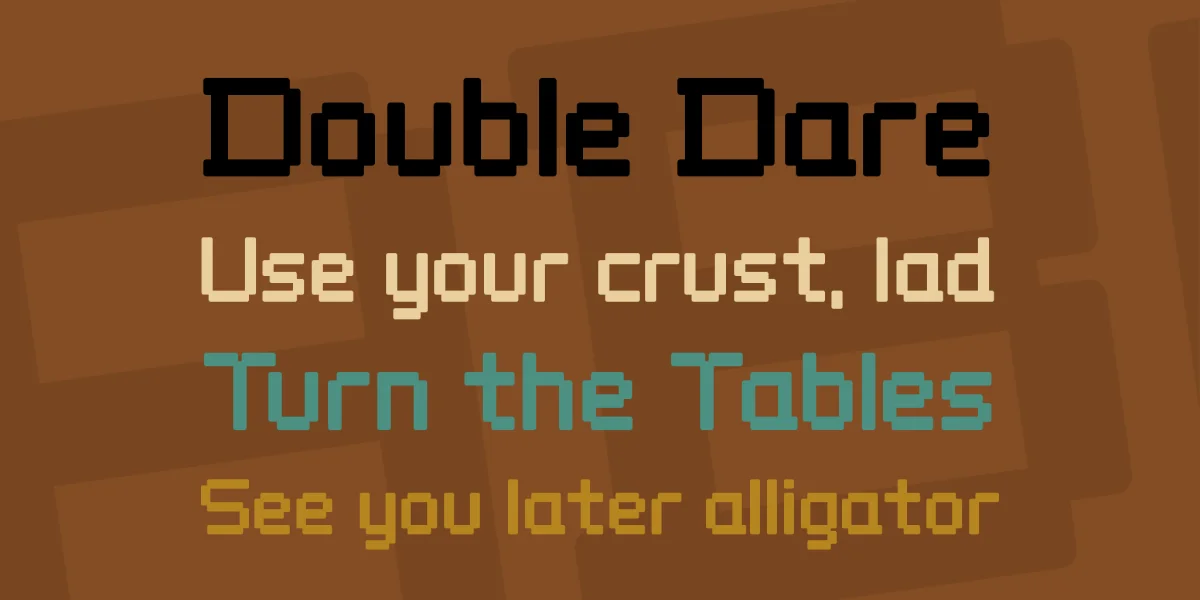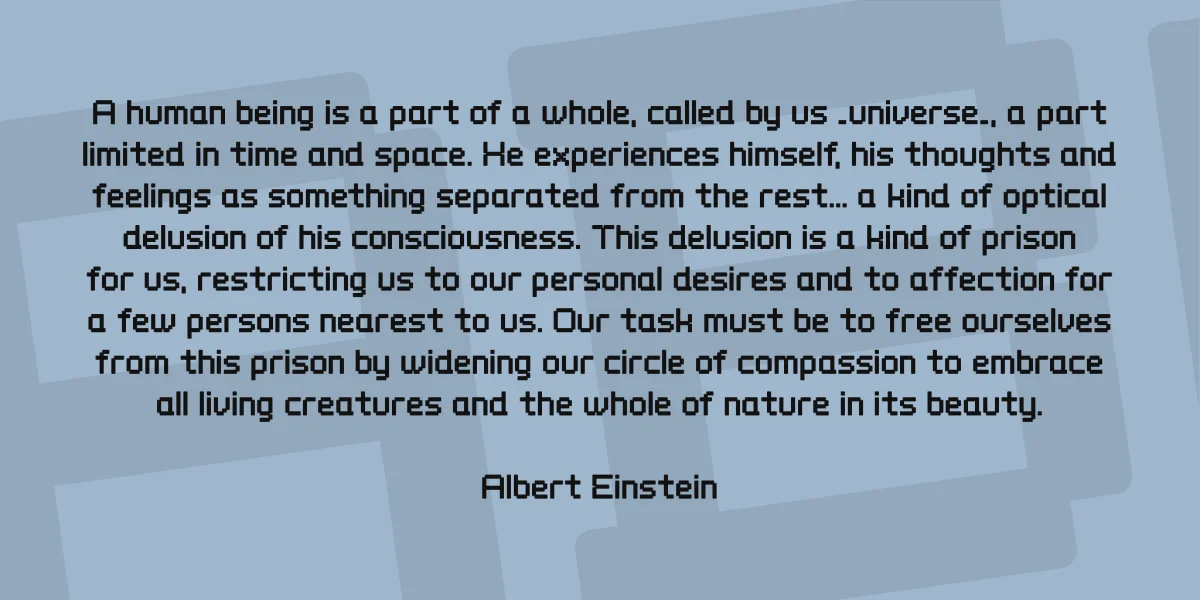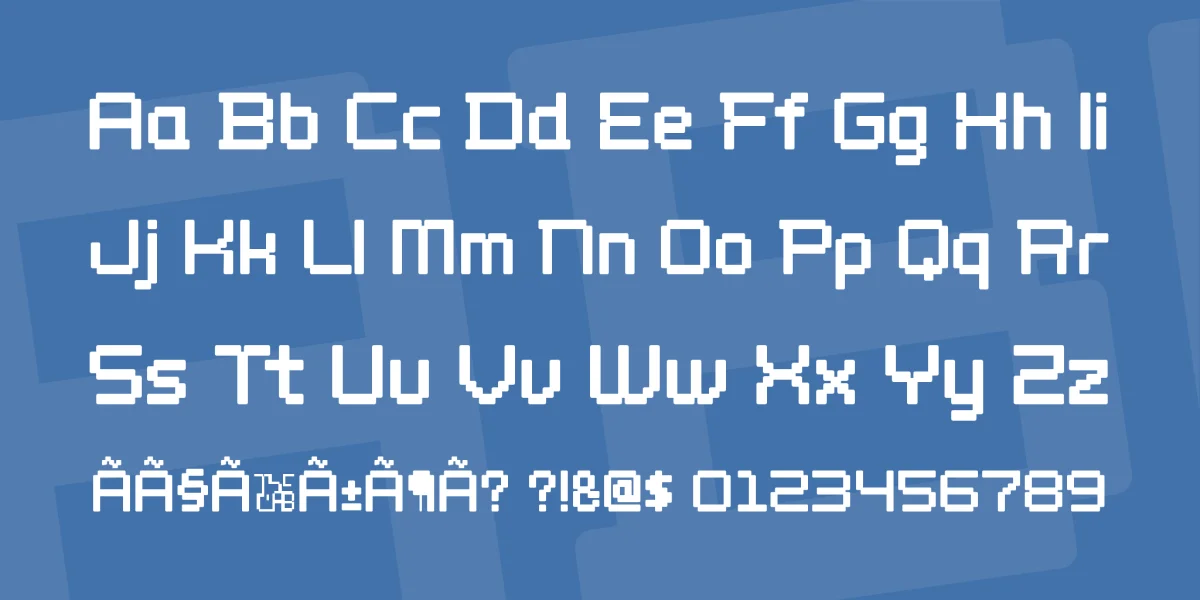
The first few letters of Welbutrin didn't look anything like they do now. It originally started as an experiment with bitmaps, where Karen turned a 12 point bitmap version of Helvetica Round into scalable outlines. At 12 points the font was certainly Helvetica Round, but at 70 and above, it looked like a blown-up version of what you see on your cell phone screen. She was impressed by that and asked me to help her out with it. I said no way, but a sample of some of her letters at 130 points gave me an idea: what if the characters were all made of rounded rectangles, like the ones that can so easily be made with the Illustrator tool?
Karen liked the idea. We exchanged grids and started working, at the pace of 2 hours a day. A couple weeks later we realized that the grids we were using were pretty good for weights of over 100 points, but really bad for anything under 70 points. So I regridded and we redrew everything while keeping in mind that we wanted this font to look as good as a rounded techno can at 14 points.